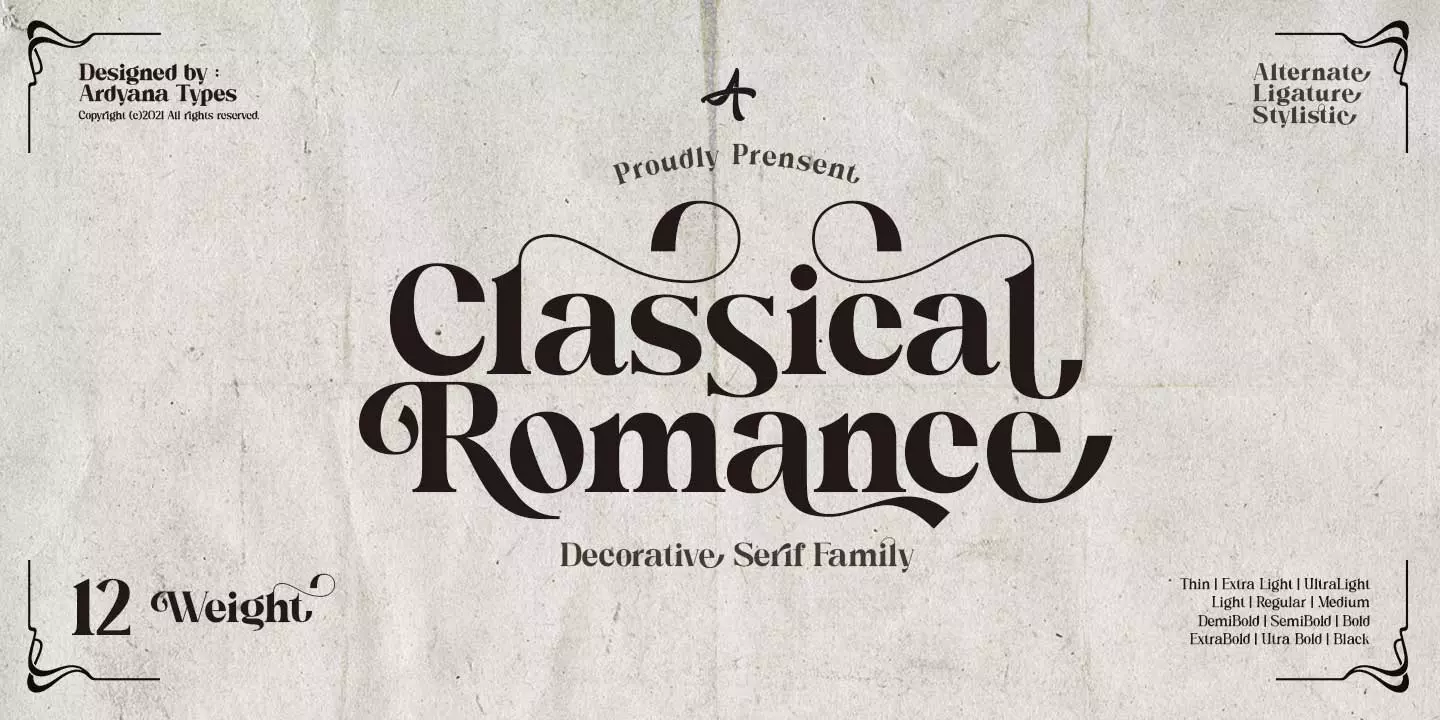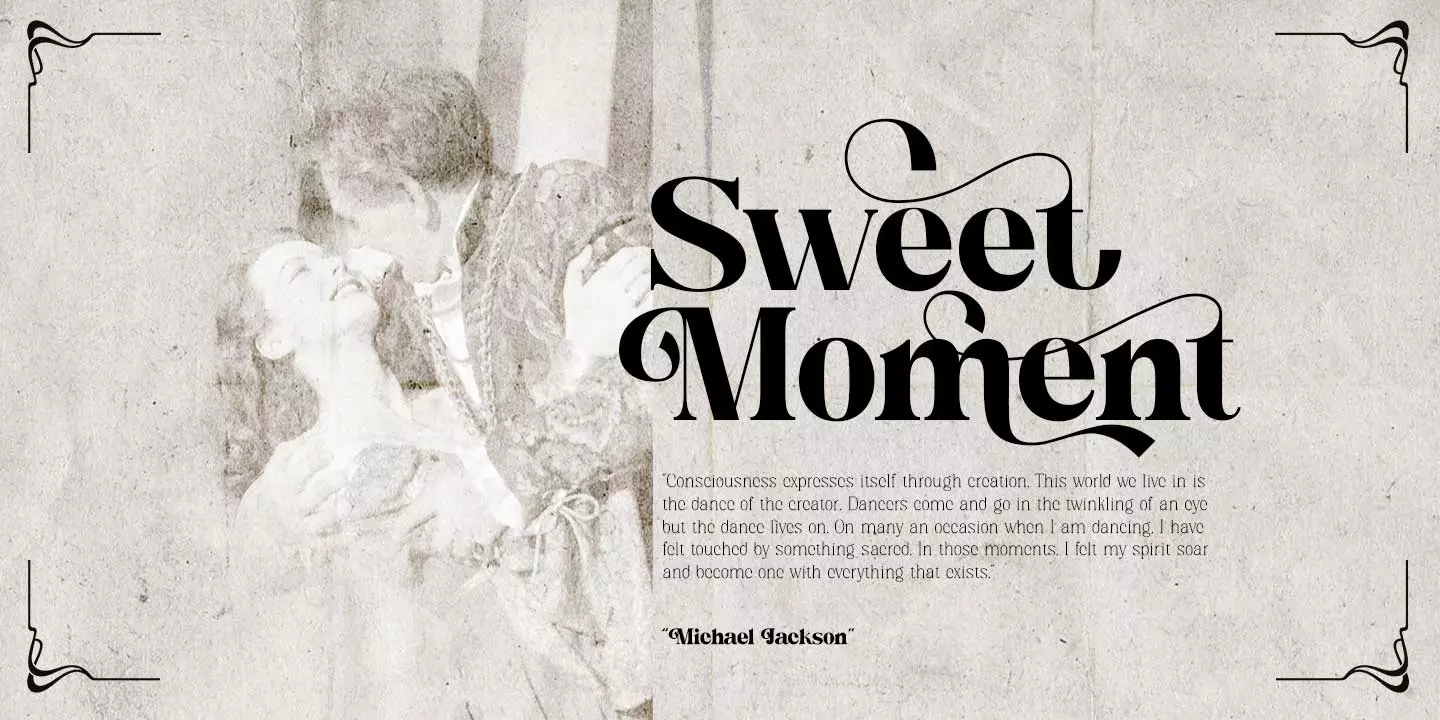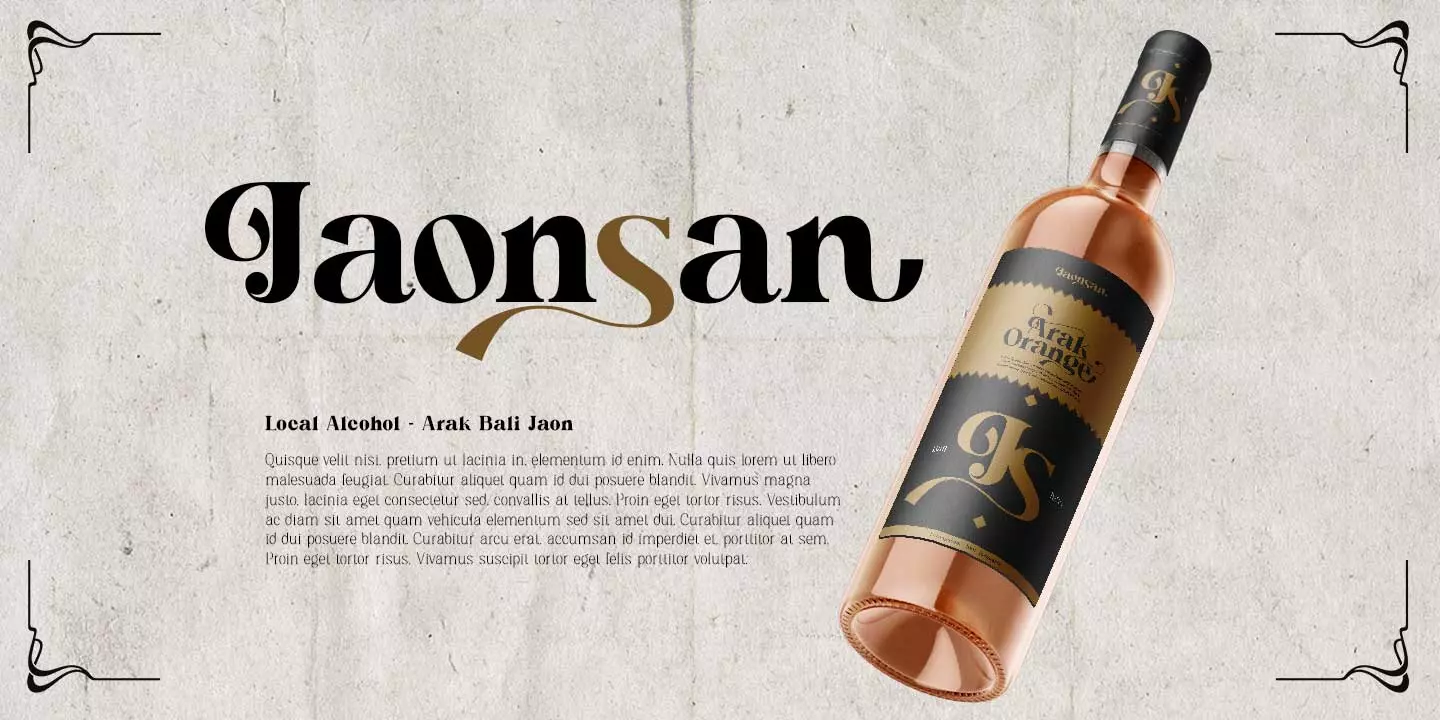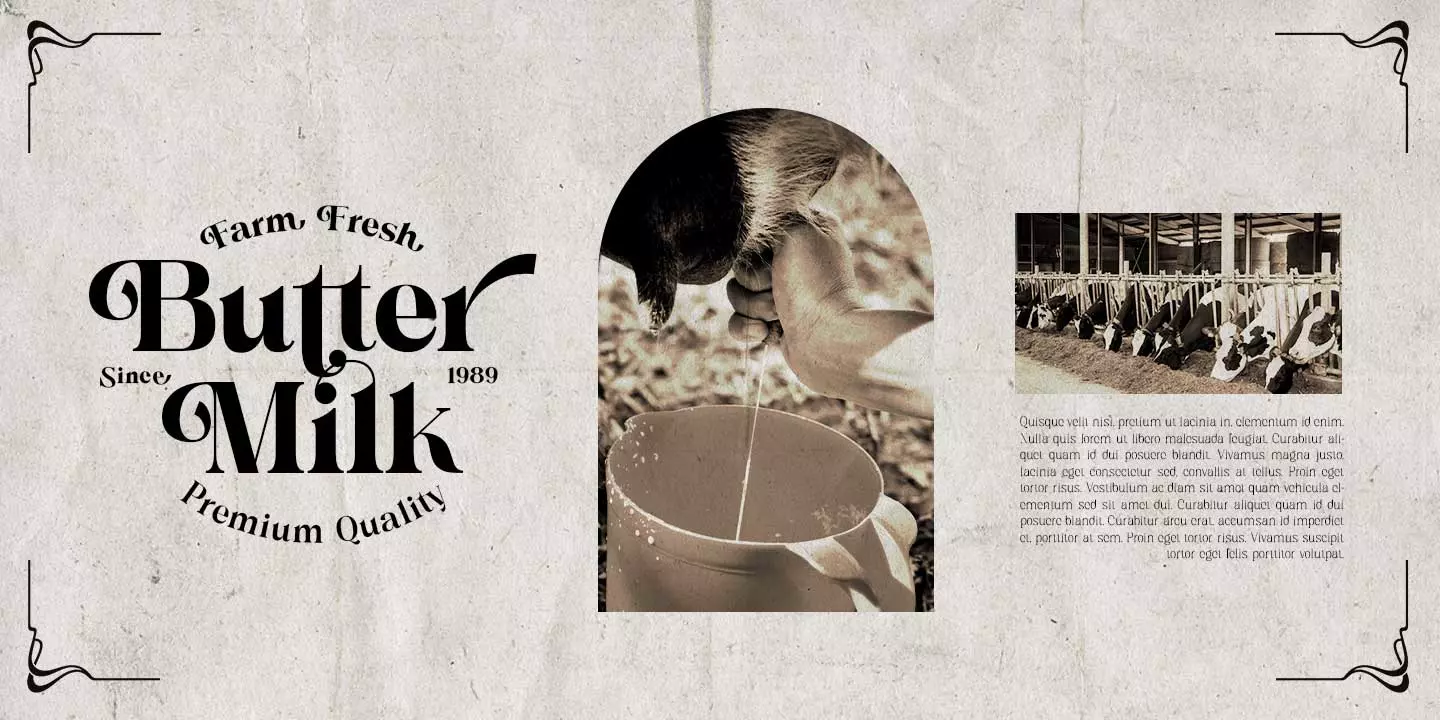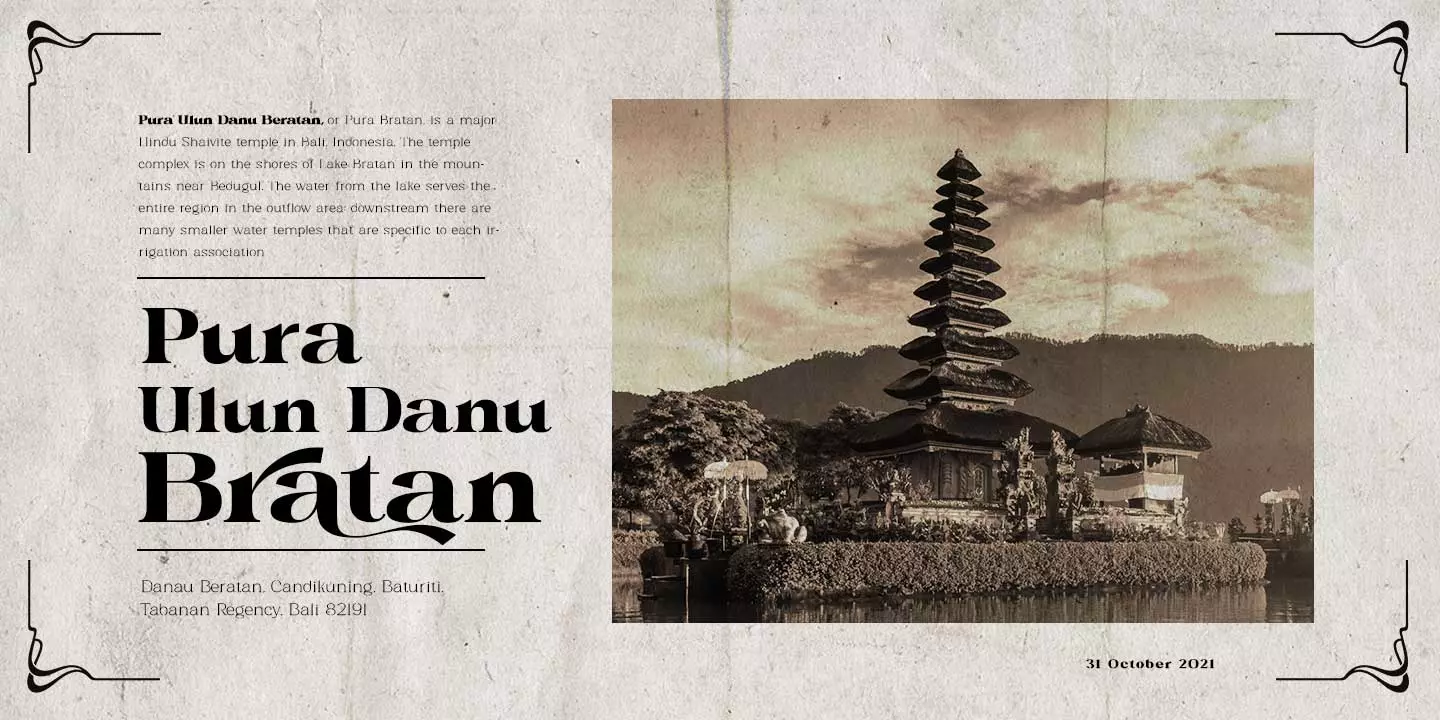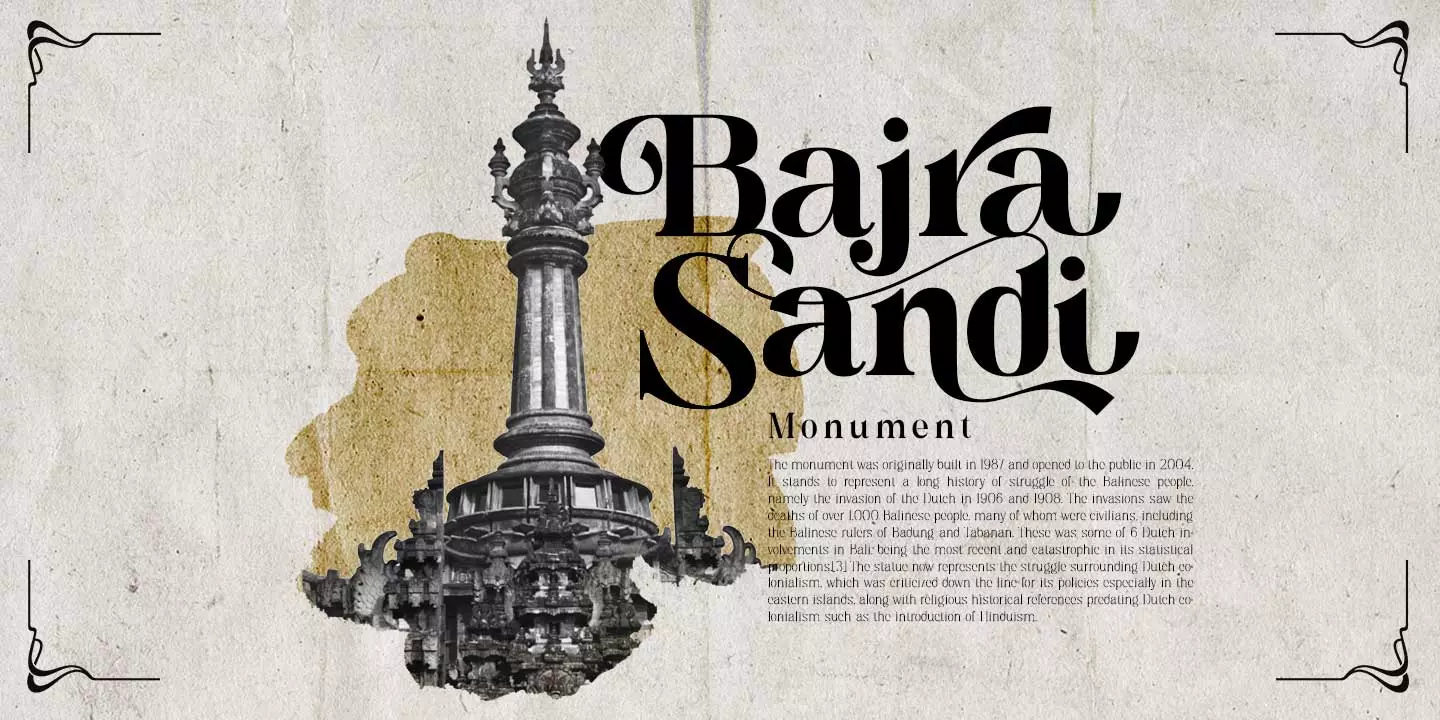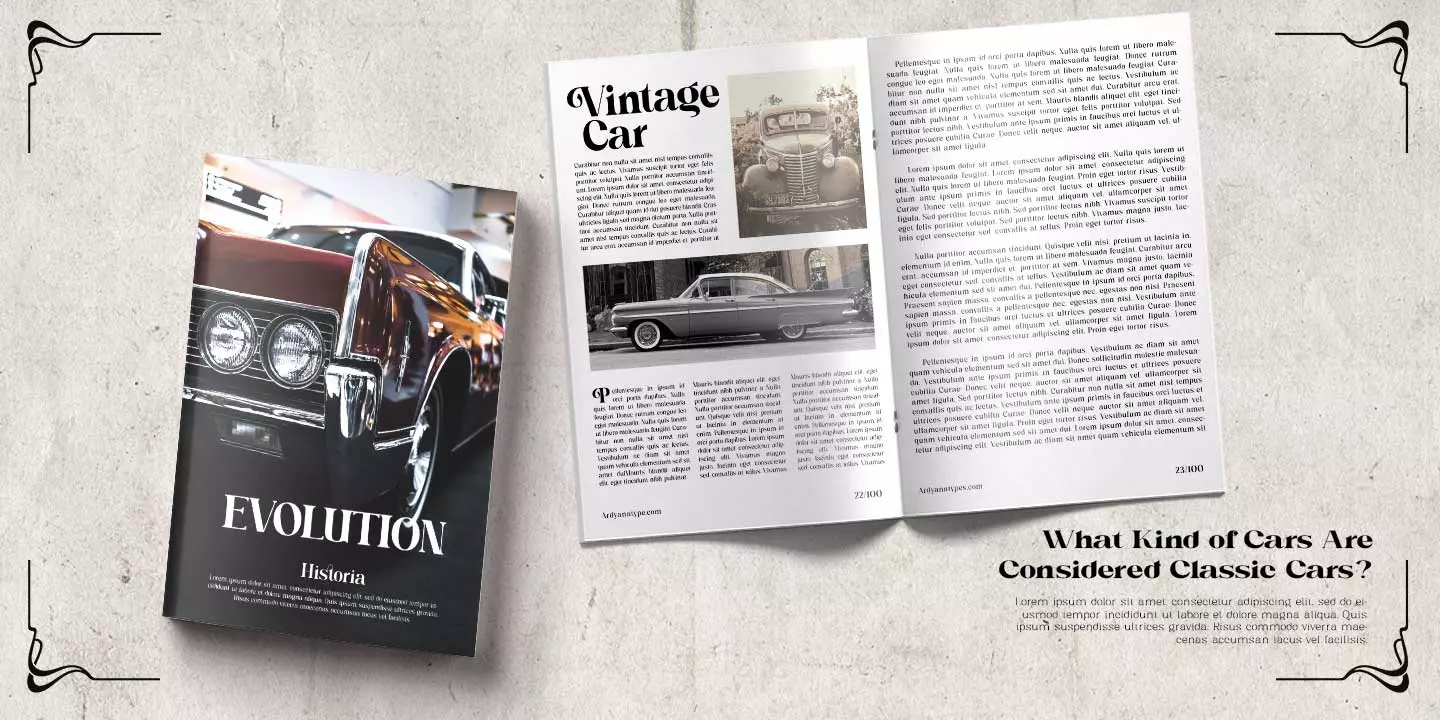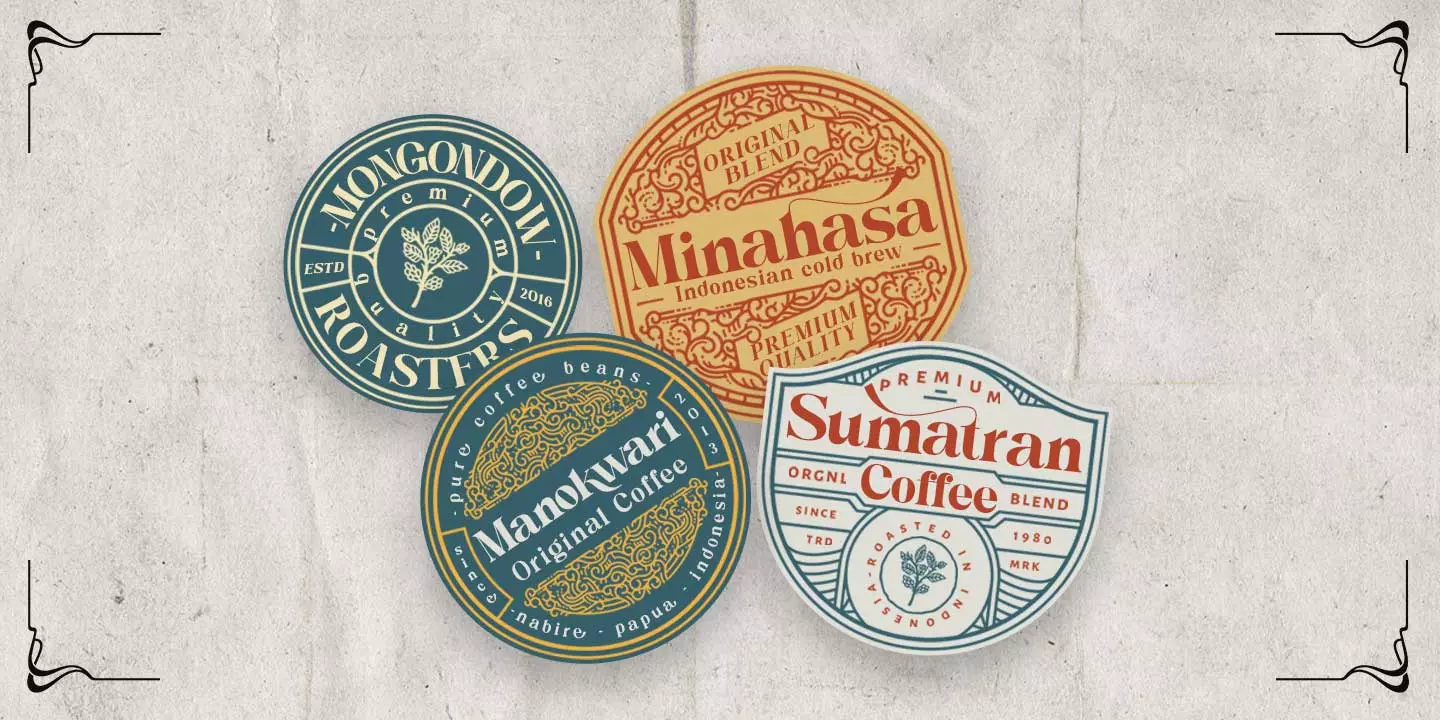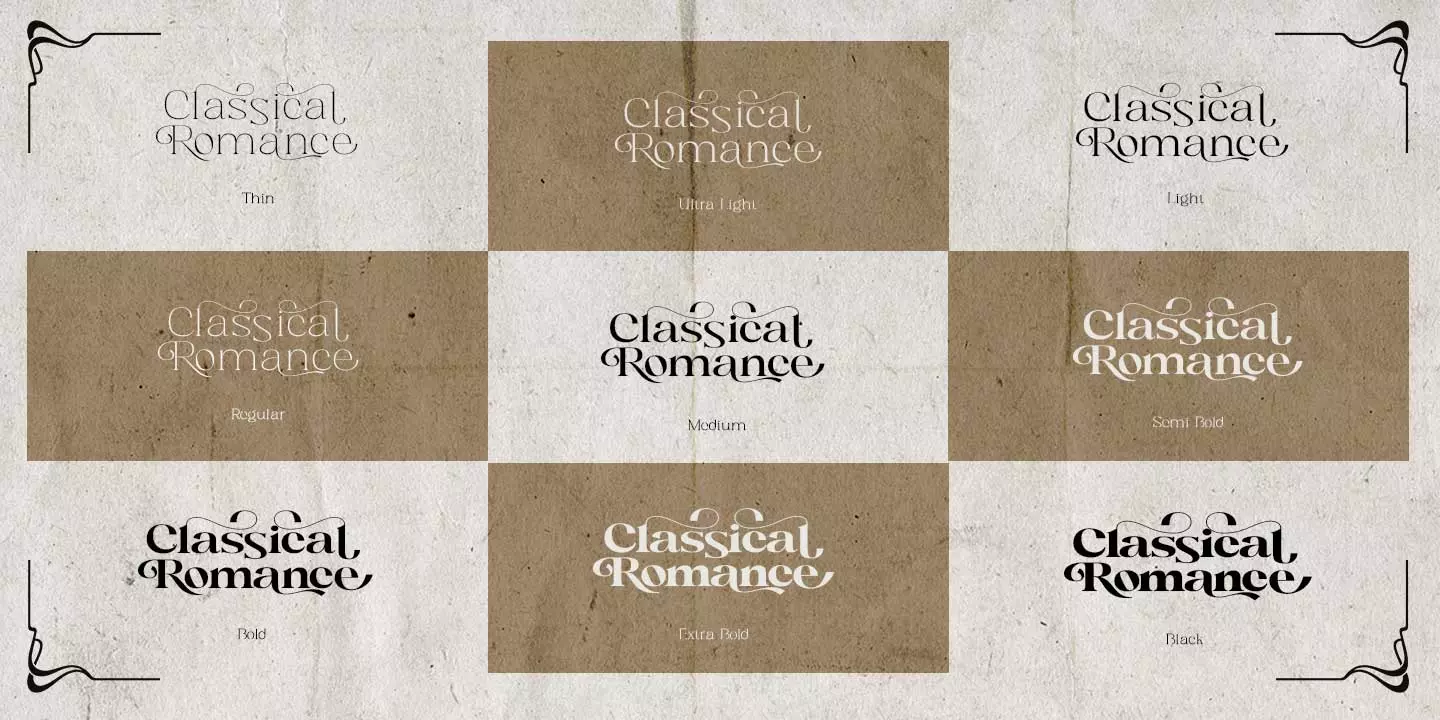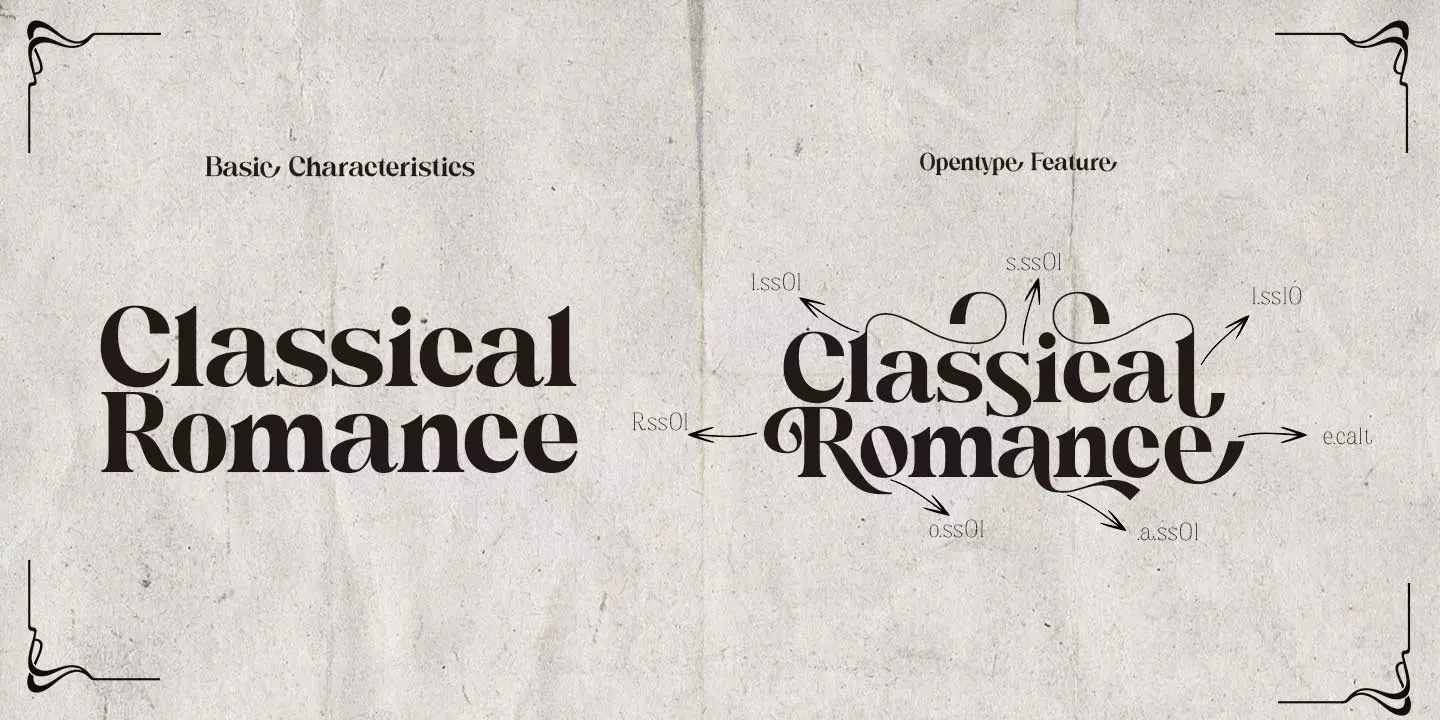
ClassicalRomance
This is it . . Classical Romance Decorative Serif Family
Classic serif with 125 stylistic alternates for a uniquely vintage, yet modern feel.
Each letterform has a slightly rough exterior that works beautifully to enhance Classical Romance’s soft, conventional details.
This versatile display typeface has enough character for logos and branding, as well as headlines,
apparel, alcohol labels, poster, online magazine, automotive, and much more.
Keep it classic, or get decorative with ornate alternates for both uppercase and lowercase glyphs!
This Classical Romance font was handwritten under the inspiration of traditional calligraphy and the wonderful magical vibe of
Bali Island.
Classical Romance brings more lovely old day vibes with 12 weights to matchmaking with your own style
and it has Multilingual support (Western European characters) and works with the following languages:
English, Danish, Dutch, Estonian, Faroese, Filipino, Finnish, French, German, Hungarian, Icelandic, Irish,
Italian, Norwegian, Polish, Portuguese, Spanish, Swedish.
Immerse more your arts in the classic feel with Classical Romance, and be classy!